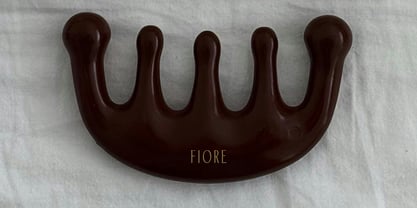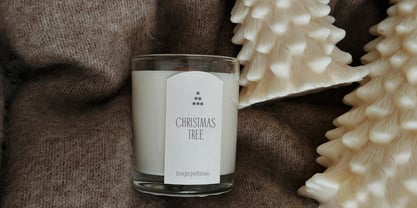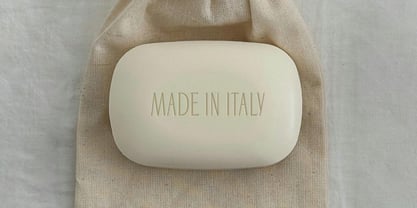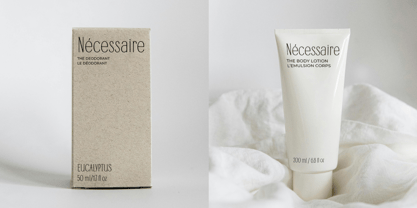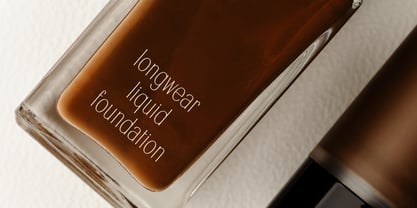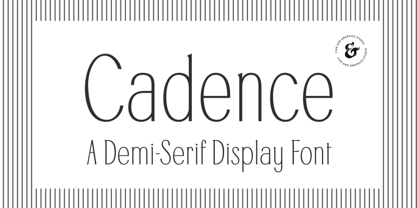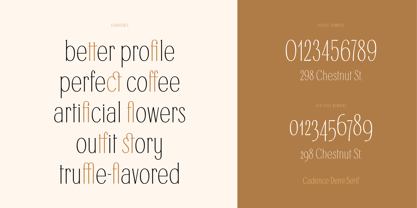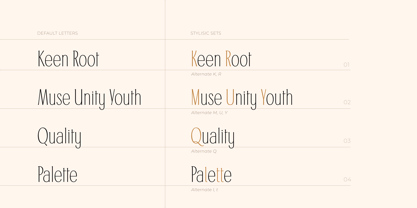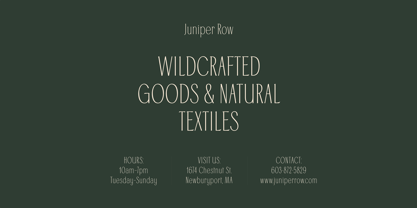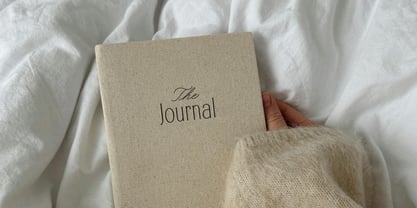
Cadence Demi Serif
Cadence is a refined demi-serif display typeface that balances softness with structure. With its high x-height, subtle Art Deco undertones, and low contrast strokes, it brings a light, lyrical rhythm to your typography.
Designed to feel graceful, modern, and quietly expressive, Cadence blends classic influences with contemporary clarity. The result is a versatile font that feels at home in both editorial layouts and elevated branding.
Perfect for:
• Editorial design & magazine layouts
• Fashion & luxury branding
• Minimalist packaging
• Lifestyle blogs & beauty campaigns
• Elegant headers & refined web typography
Features:
• Uppercase & lowercase
• Lining and oldstyle figures
• Multilingual support
• Punctuation & symbols
• Stylistic Alternates
Let Cadence bring a lyrical clarity to your next design. Whether used in bold headlines or as a subtle accent, this demi-serif invites readers in with grace, charm, and a quiet sense of confidence.